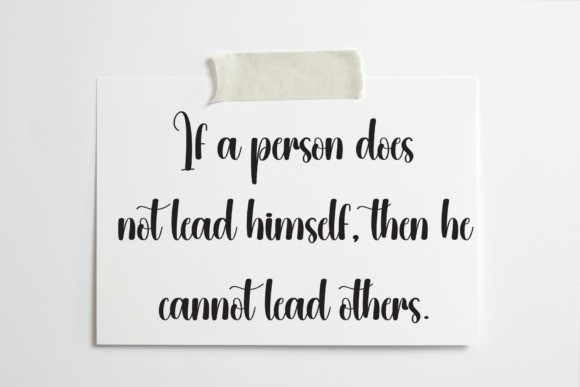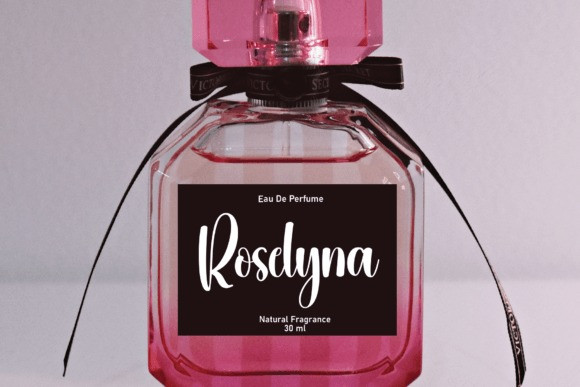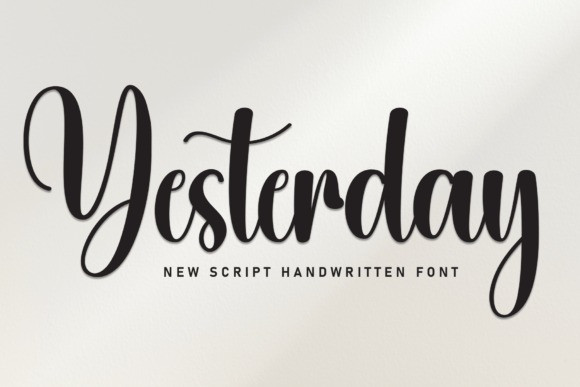
Yesterday Handwritten Typeface
Yesterday Script Font is a sweet and cursive handwritten font. This gentle font will look gorgeous on a variety of design ideas. It will add a joyful and romantic touch to each of your projects!